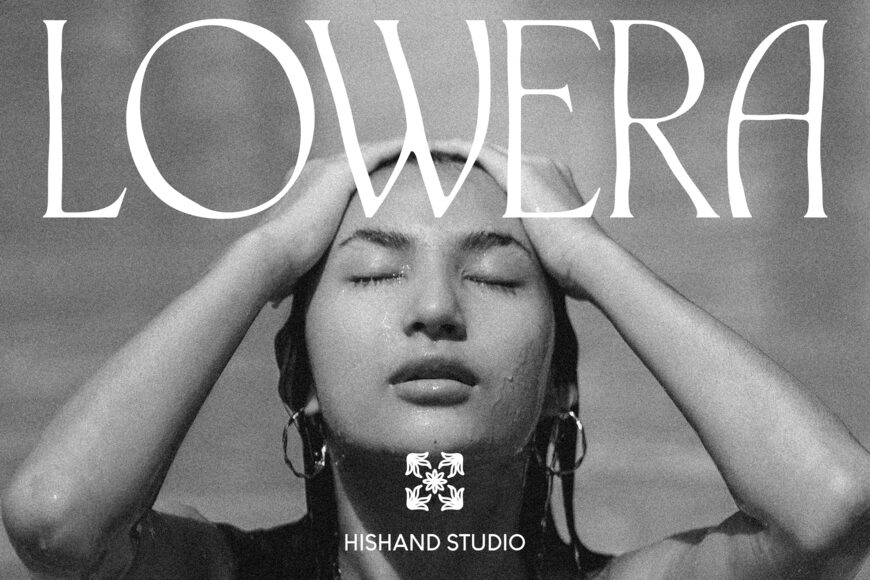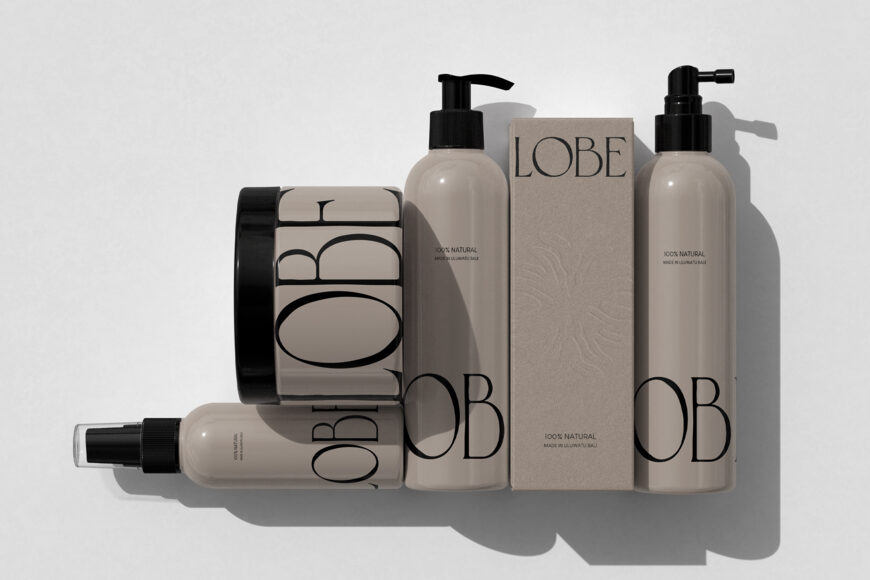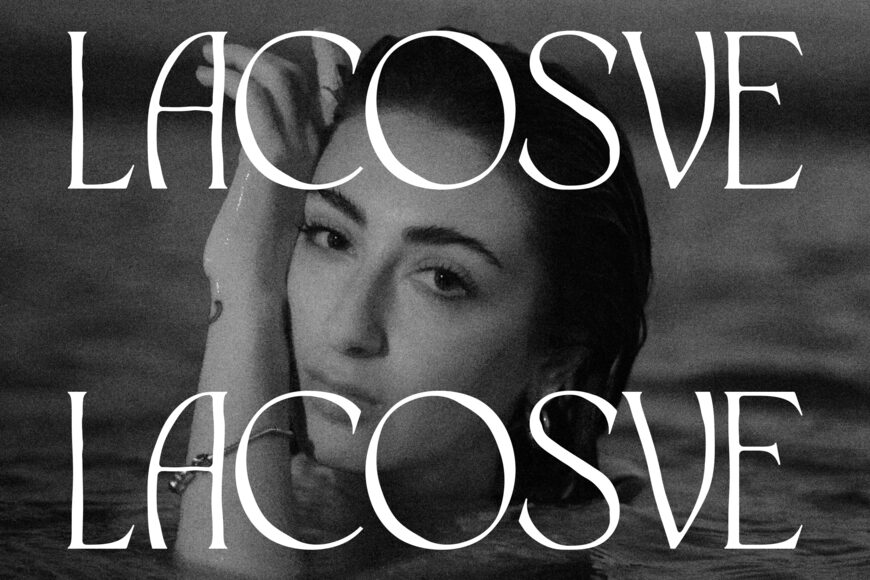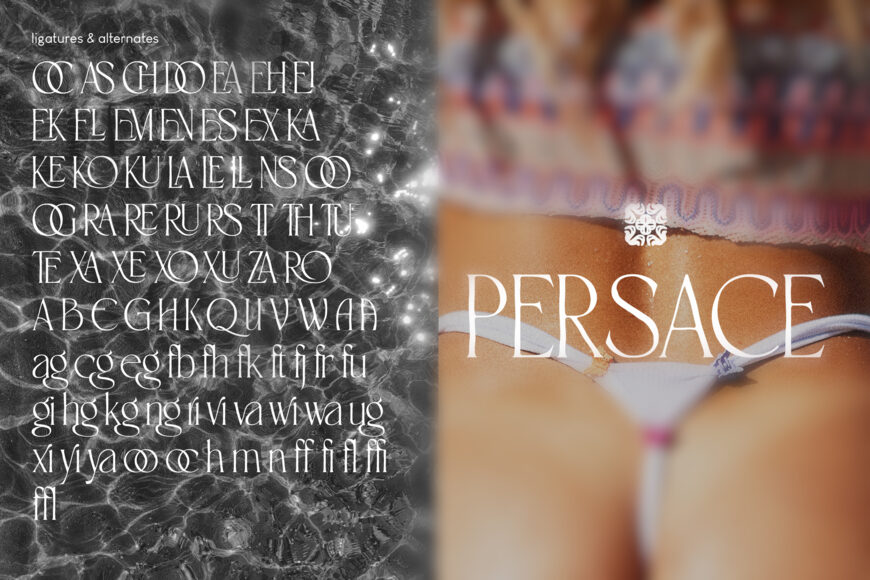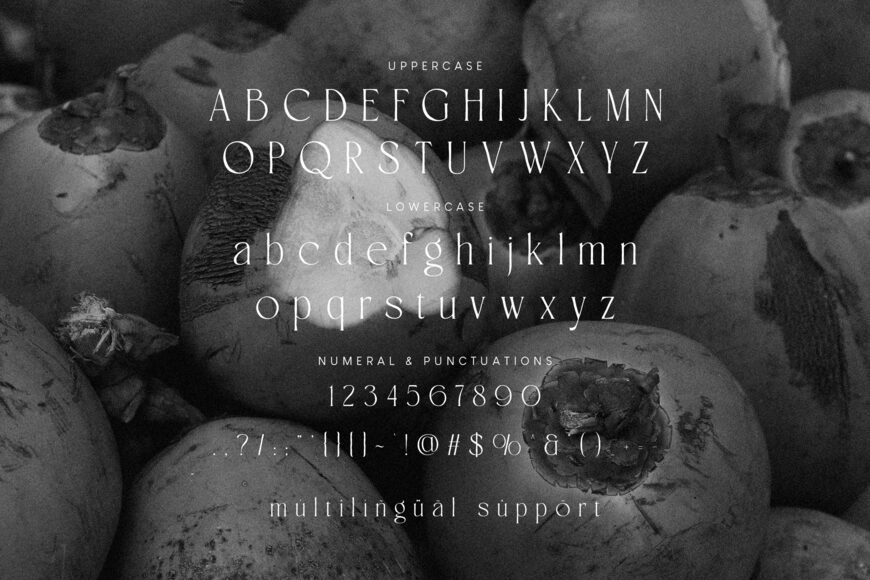
Lowera Font
Lowera is a hand-drawn display serif font created for labels, packaging, and branding with a warm, handcrafted character. Inspired by vintage apothecary jars, spirit bottles, and market signage, it features tapered strokes, subtle irregularities, and a gently shifting baseline that create an organic, old-world feel without appearing dated.
Strong uppercase letters suit headlines and logos, while readable lowercase forms work well at smaller sizes. Perfect for kraft labels, coffee and spirits packaging, menus, craft products, and nostalgic brand identities, Lowera adds personality and texture to every design.
Designed by: Hishand Studio